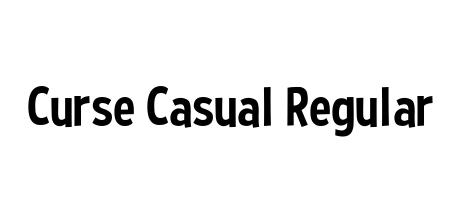
Curse Casual
By Jayvee Enaguas
Curse Casual Regular boasts a bold, slightly condensed sans-serif design. Its sturdy, even weight gives it a friendly yet confident feel. The letterforms are clean and modern, suggesting approachability and readability. It’s a versatile font suitable for headlines and body text, conveying a casual yet professional tone.